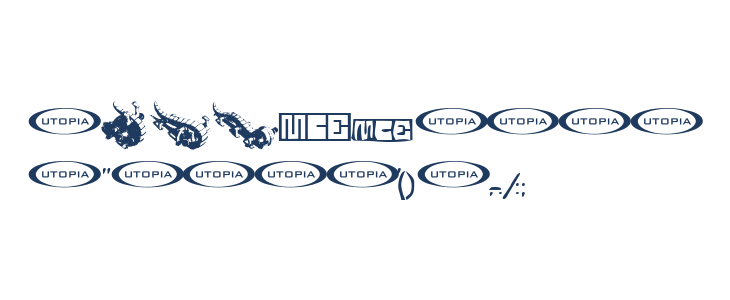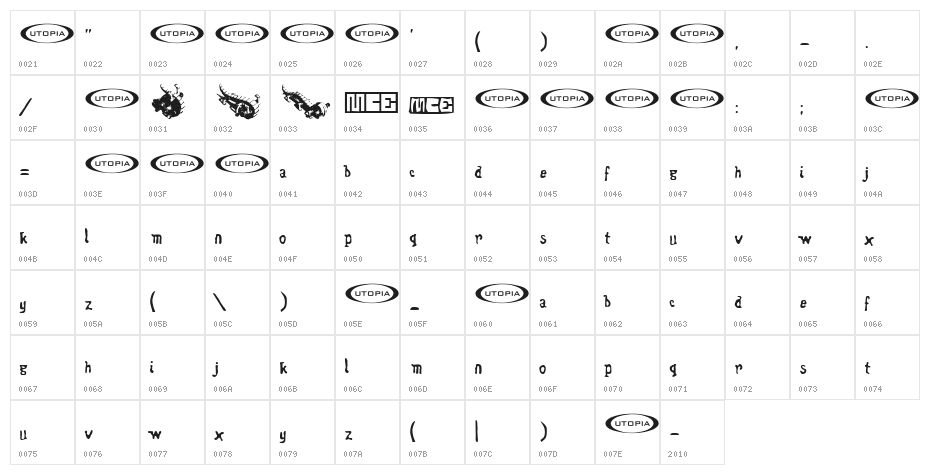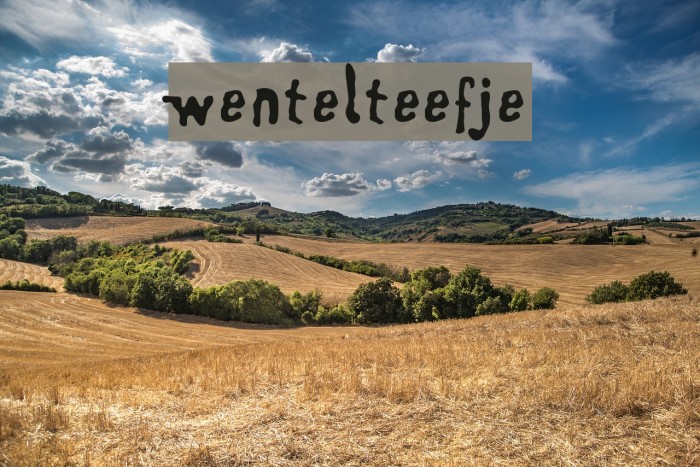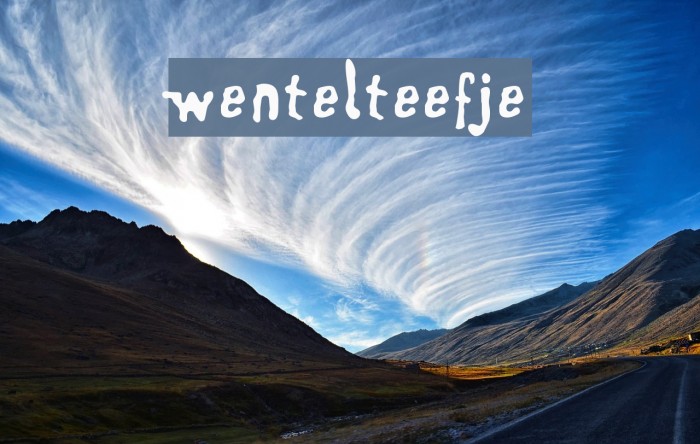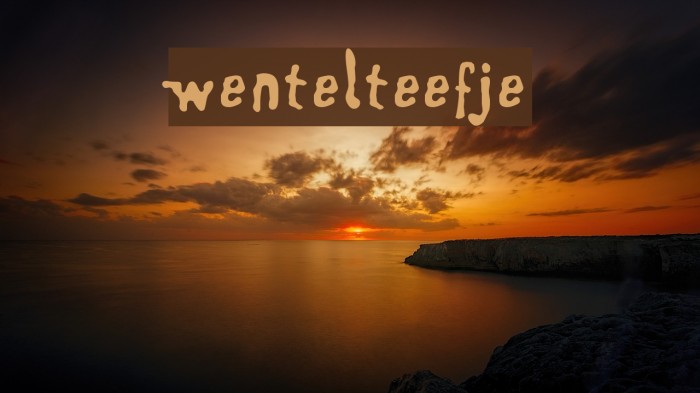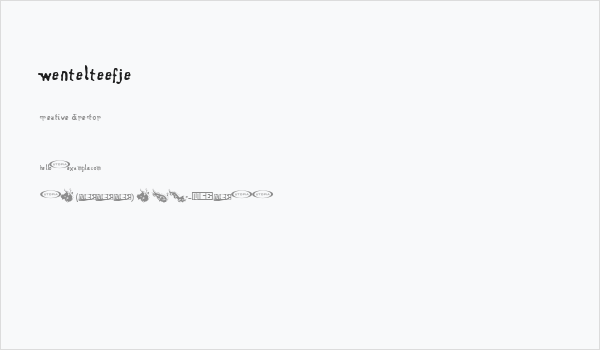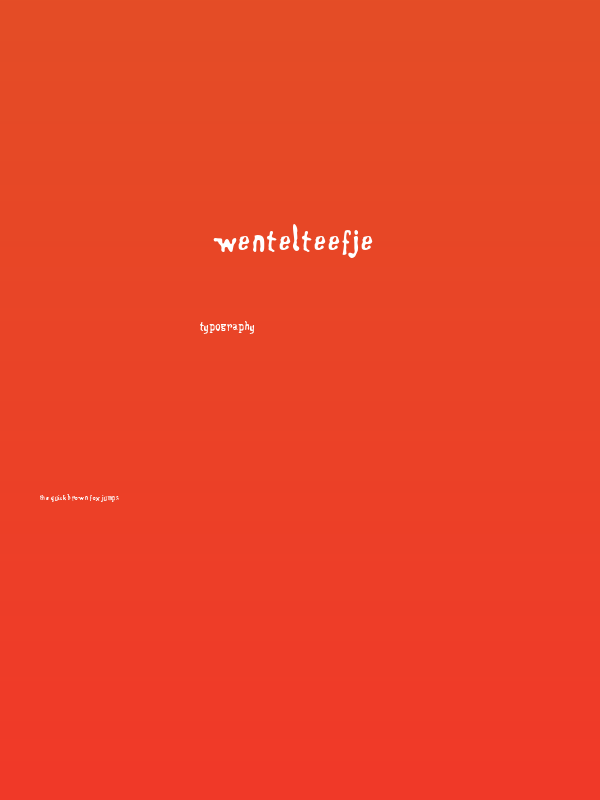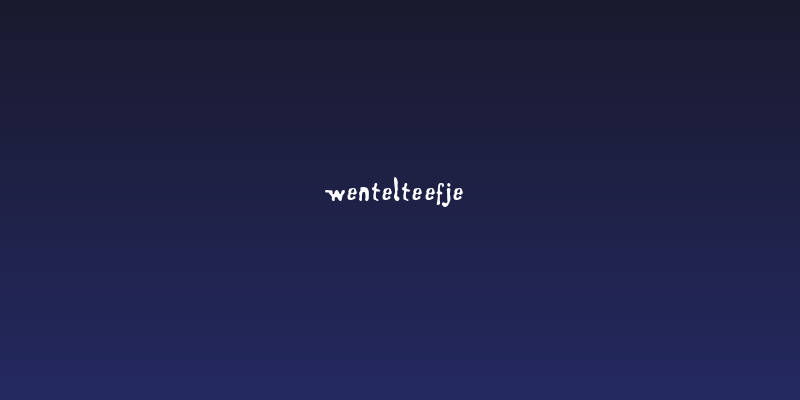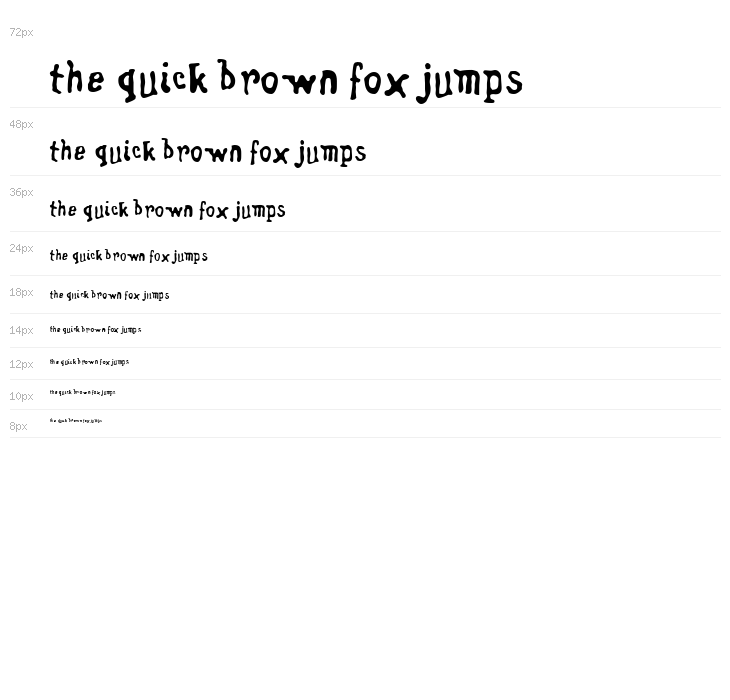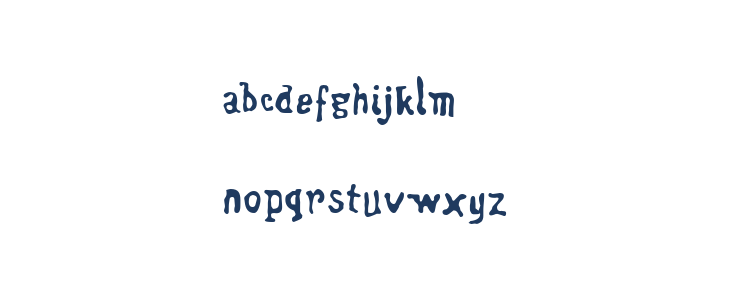
Wentelteefje Font
Wentelteefje Description
This font features a whimsical and playful design, characterized by its uneven and slightly irregular letterforms. The strokes are bold and have a hand-drawn quality, giving it a unique and artistic appearance. The letters are slightly condensed, with varying stroke thickness that adds to its charm. The overall style is reminiscent of vintage or retro designs, making it suitable for projects that require a touch of nostalgia or creativity. The font's distinctive look is ideal for capturing attention and conveying a sense of fun and individuality.
| Proposed Projects | Ideal for children's books, creative posters, playful branding, and artistic invitations. |